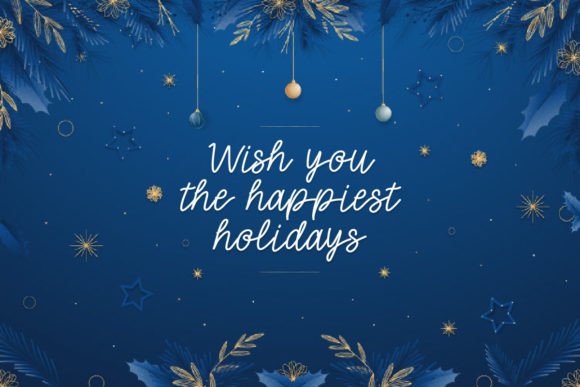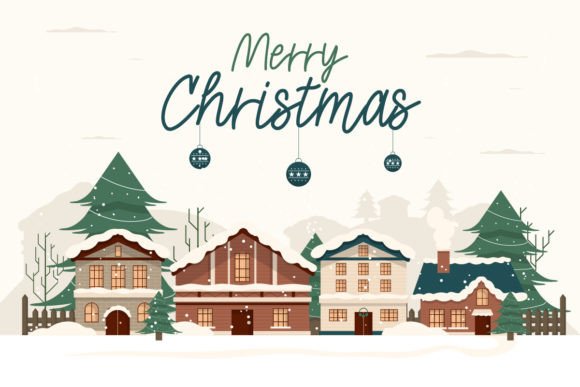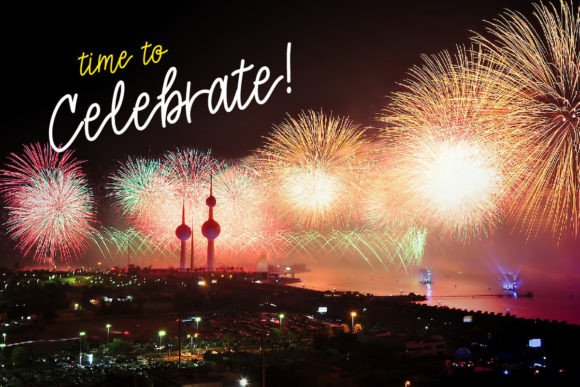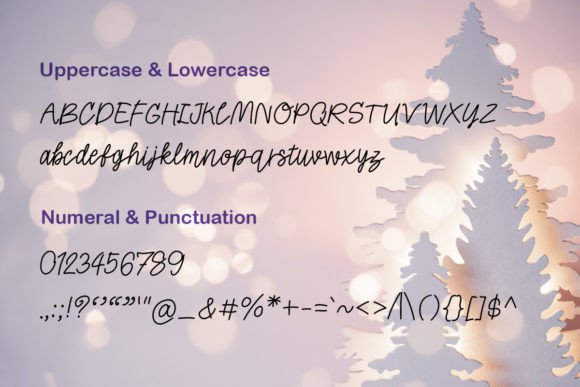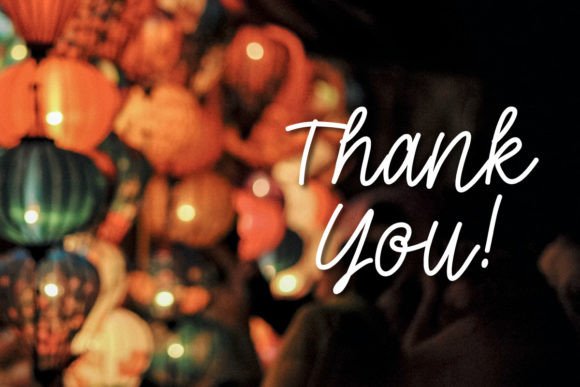
Introducing Happy Festival Font: The Sweet and Delicate Handwritten Script Font
Are you looking for a font that can add a touch of sweetness and delicacy to your designs? Look no further than Happy Festival Font! This beautiful handwritten script font is perfect for designers and crafters who want to add a personal and charming touch to their work. In this article, we’ll take a closer look at Happy Festival Font and explore its features, uses, and benefits.
What is Happy Festival Font?
Happy Festival Font is a sweet and delicate handwritten script font that is designed to bring a touch of charm and style to your designs. This friendly hand-lettered typeface is perfect for a variety of design projects, including quotes, headings, logos, branding, merchandise, and websites. With its elegant and flowing lines, Happy Festival Font is sure to add a touch of sophistication and whimsy to your work.
Features of Happy Festival Font
So, what makes Happy Festival Font so special? Here are just a few of its key features:
- Handwritten script font: Happy Festival Font is a true handwritten script font, with each letter carefully crafted to create a unique and personal feel.
- Sweet and delicate: This font is characterized by its sweet and delicate lines, which are perfect for creating a touch of elegance and sophistication in your designs.
- Charming and stylish: Happy Festival Font has a charming and stylish feel that’s perfect for designers and crafters who want to add a personal touch to their work.
- Versatile: This font is perfect for a variety of design projects, from quotes and headings to logos and branding.
Uses of Happy Festival Font
So, what can you use Happy Festival Font for? The possibilities are endless! Here are just a few ideas to get you started:
- Quotes and headings: Happy Festival Font is perfect for creating beautiful quotes and headings that will add a touch of elegance and sophistication to your designs.
- Logos and branding: This font is also great for creating logos and branding materials that will help you establish a unique and memorable identity.
- Merchandise: Happy Festival Font is perfect for creating a variety of merchandise, from t-shirts and mugs to stickers and other promotional items.
- Websites: This font is also great for use on websites, where it can add a touch of personality and whimsy to your design.
Benefits of Happy Festival Font
So, why should you choose Happy Festival Font for your design projects? Here are just a few benefits of using this beautiful font:
- Unique and personal feel: Happy Festival Font has a unique and personal feel that will help your designs stand out from the crowd.
- Elegant and sophisticated: This font is characterized by its elegant and sophisticated lines, which are perfect for creating a touch of luxury and refinement in your designs.
- Versatile: Happy Festival Font is a versatile font that can be used for a wide range of design projects.
- Easy to read: This font is also easy to read, making it perfect for use in body text and other applications where readability is important.
Tips for Using Happy Festival Font
Here are a few tips for using Happy Festival Font in your design projects:
- Use it sparingly: Happy Festival Font is a beautiful font, but it can be overwhelming if used too much. Use it sparingly to add a touch of elegance and sophistication to your designs.
- Pair it with other fonts: This font pairs well with a variety of other fonts, so don’t be afraid to experiment with different combinations.
- Experiment with colors and textures: Happy Festival Font looks great in a variety of colors and textures, so don’t be afraid to experiment and find the look that works best for your design.
| Font Name | Happy Festival Font |
| Author | Katatype |
In conclusion, Happy Festival Font is a beautiful and versatile handwritten script font that is perfect for designers and crafters who want to add a touch of elegance and sophistication to their work. With its sweet and delicate lines, charming and stylish feel, and versatility, this font is sure to become a favorite in your design toolkit. So why wait? Download Happy Festival Font today and start creating beautiful designs that will delight and inspire your audience!